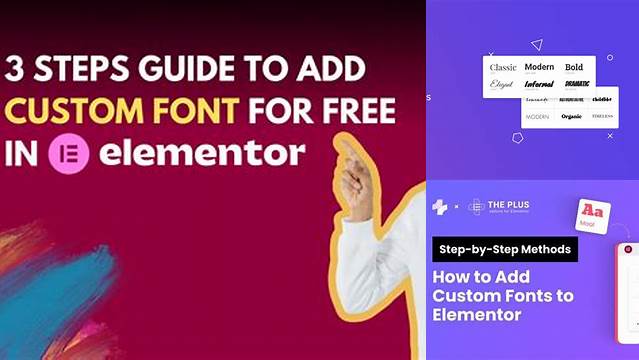
Custom Fonts In Elementor Free: Easy Guide For 2024
Are you looking to enhance your website's design and brand identity? Using custom fonts in Elementor can be a game-changer. While Elementor Pro offers a straightforward way to upload and use custom fonts, you might be wondering how to achieve this with the free version. Well, you're in the right place! This comprehensive guide will walk you through various methods to use custom fonts in Elementor free, ensuring your website stands out from the crowd. So, let's dive in and explore how you can elevate your website's typography without spending a dime.
Why Use Custom Fonts?
Before we get into the how-to, let's understand why using custom fonts is essential for your website. Fonts are a crucial element of your website's design, playing a significant role in shaping your brand's visual identity. The right font can communicate your brand's personality, improve readability, and create a cohesive user experience. Imagine a sleek, modern tech company using a playful, cartoonish font – it just wouldn't align with their brand image, right? Similarly, a creative agency might want to steer clear of generic, overused fonts like Arial or Times New Roman to truly stand out.
Custom fonts allow you to break away from the standard web fonts and choose typography that perfectly reflects your brand. This is particularly important for creating a unique and memorable online presence. When you use a custom font, you're not just choosing a typeface; you're crafting a visual language that speaks directly to your audience. This attention to detail can significantly enhance your website's overall appeal and professionalism, making it more engaging and trustworthy for visitors. Moreover, a well-chosen custom font can improve readability, making your content more accessible and enjoyable to consume. Ultimately, custom fonts are a powerful tool for branding, user experience, and overall website design.
Branding and Visual Identity
Branding is more than just a logo; it's the entire experience a customer has with your business. Fonts are a critical component of this experience, as they contribute significantly to your visual identity. A custom font can set you apart from competitors, making your website instantly recognizable. Think of iconic brands like Coca-Cola or Disney – their distinctive fonts are integral to their brand recognition. By using custom fonts, you can create a similar level of brand association for your business. For instance, a minimalist brand might opt for a clean, sans-serif font, while a more traditional brand might choose a serif font with classic appeal. The font you choose should align with your brand's values, personality, and target audience.
In addition to brand recognition, custom fonts can also evoke specific emotions and associations. A handwritten font might convey warmth and authenticity, while a bold, geometric font could communicate innovation and modernity. By carefully selecting a font that aligns with your brand's message, you can create a cohesive and impactful visual identity that resonates with your audience. This consistency across your website, marketing materials, and other brand touchpoints will help solidify your brand in the minds of your customers. Ultimately, investing in custom fonts is an investment in your brand's long-term success.
Improved Readability and User Experience
While aesthetics are important, readability should always be a top priority when choosing fonts. A beautiful font is useless if your visitors struggle to read your content. Custom fonts can help you optimize readability by allowing you to select typefaces that are clear, legible, and easy on the eyes. Factors like font size, line height, and letter spacing all contribute to readability, and custom fonts give you greater control over these elements. For instance, a font with generous spacing and well-defined characters will be easier to read on screens, reducing eye strain and improving the user experience.
Moreover, custom fonts can help you create a visual hierarchy on your website. By using different fonts for headings, subheadings, and body text, you can guide your visitors through your content and highlight important information. This visual structure makes your website more scannable and engaging, encouraging visitors to stay longer and explore your content. A well-designed typography system can also improve the overall flow of your website, making it more intuitive and user-friendly. Ultimately, by prioritizing readability and user experience, you can create a website that not only looks great but also effectively communicates your message and achieves your business goals.
Methods to Add Custom Fonts in Elementor Free
Now that we understand the importance of custom fonts, let's explore how you can add them to your Elementor website without upgrading to the Pro version. Several methods allow you to use custom fonts in Elementor free, each with its own advantages and considerations. We'll cover the most popular and effective techniques, providing step-by-step instructions and practical tips to help you implement them successfully. Whether you're a beginner or an experienced WordPress user, you'll find a method that suits your needs and technical skills. So, let's get started and unlock the potential of custom fonts in your Elementor designs.
Using Plugins
One of the easiest and most popular ways to add custom fonts to Elementor free is by using plugins. Several free plugins are available in the WordPress repository that allow you to upload and manage custom fonts with ease. These plugins typically provide a user-friendly interface where you can upload your font files (in formats like TTF, OTF, WOFF, and WOFF2) and then select them within the Elementor editor. This method is ideal for users who prefer a visual approach and want to avoid coding. The best part? Many of these plugins are regularly updated and well-supported, ensuring compatibility with the latest versions of WordPress and Elementor.
The advantage of using plugins is that they simplify the process of adding custom fonts, making it accessible to users of all skill levels. They often come with additional features, such as font previews and font management tools, which can further streamline your workflow. However, it's important to choose a reputable plugin with good reviews and a proven track record to avoid potential conflicts or security issues. We'll discuss some of the top plugin options in more detail later in this guide, highlighting their key features and benefits. By leveraging the power of plugins, you can easily enhance your website's typography and create a unique visual identity without writing a single line of code.
To illustrate how easy it is to add custom fonts using a plugin, let's walk through a step-by-step guide using the Custom Fonts plugin by Brainstorm Force, one of the most user-friendly options available. This guide will cover everything from installing the plugin to applying your custom fonts in Elementor. By following these instructions, you'll be able to enhance your website's typography in no time.